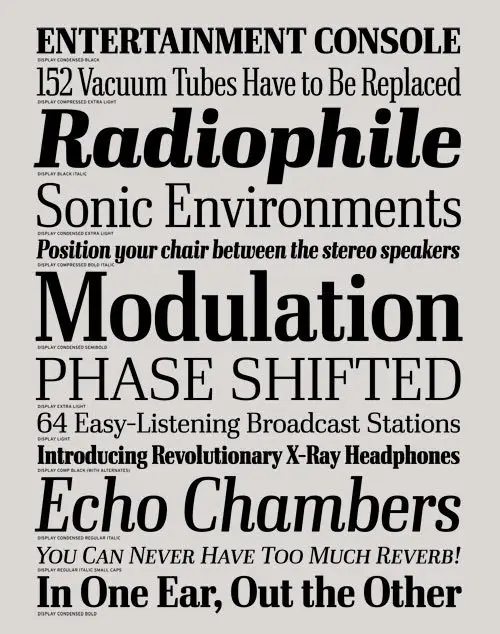
Ibis Display Font Family
As he explains the origin and purpose of this design, it becomes clear that Cyrus Highsmith undertook Ibis as a real typographic adventure. Studying the Font Bureau library, he found openings that were filled elsewhere by Justus Erich Walbaum’s 1819 Walbaum and Hermann Zapf’s 1952 Melior. Combining these two diverse influences may be far from obvious, but Highsmith found the result to be truly inspirational.